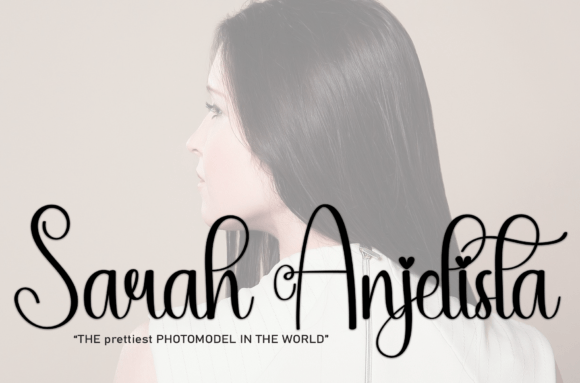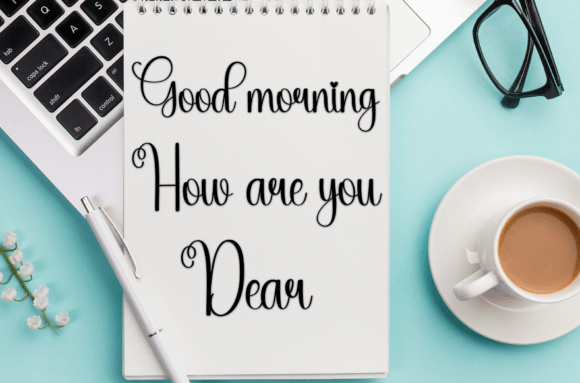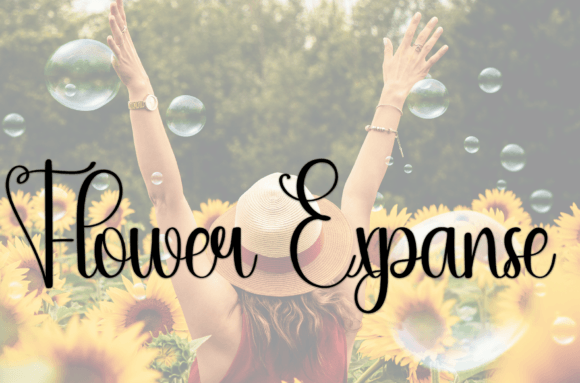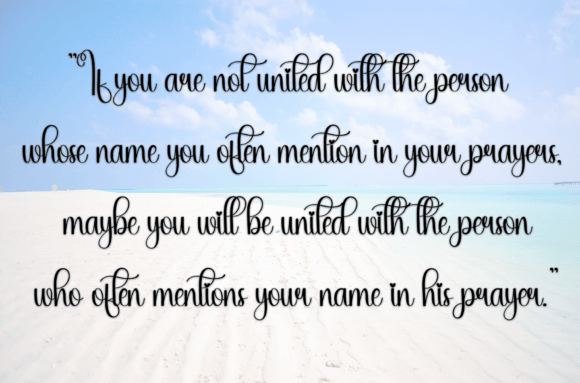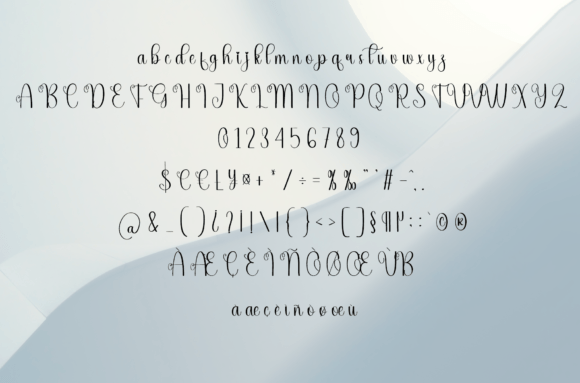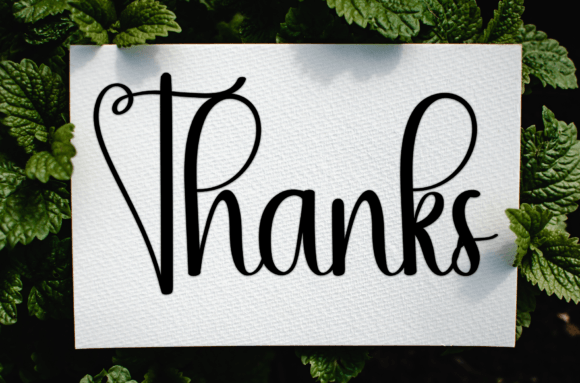
Offline
Offline is a sweet handwritten font. Friendly and cute, this font is ideal for writing wedding invitations, cards, or any other design that might need a fun touch!